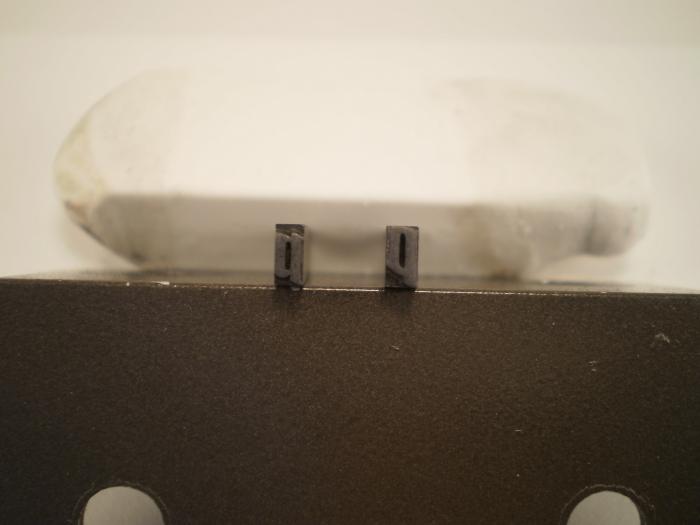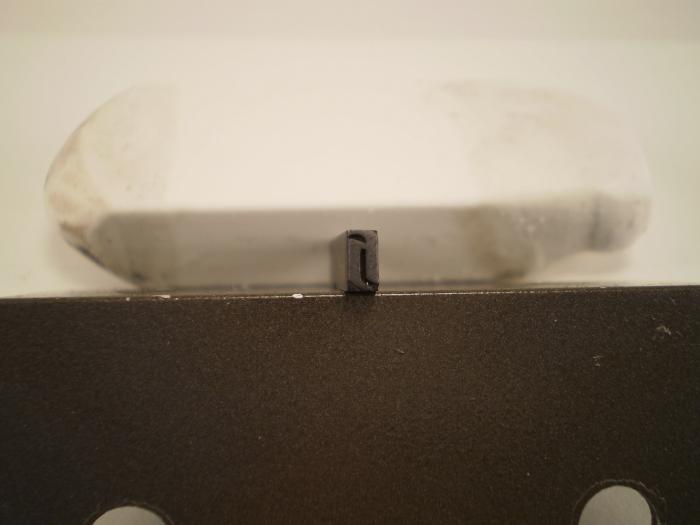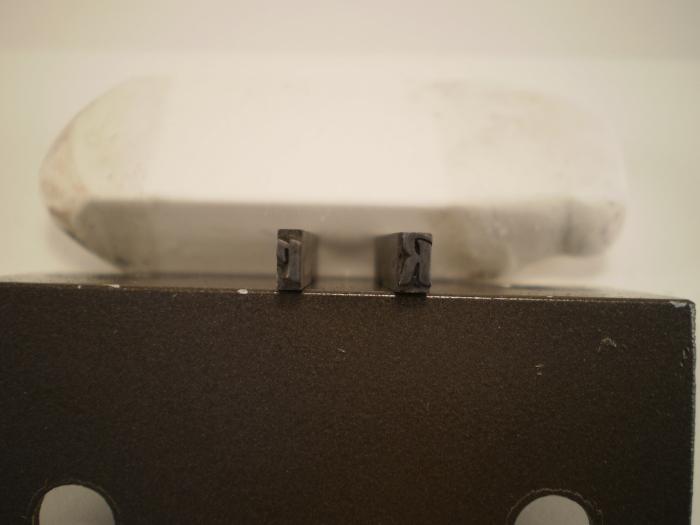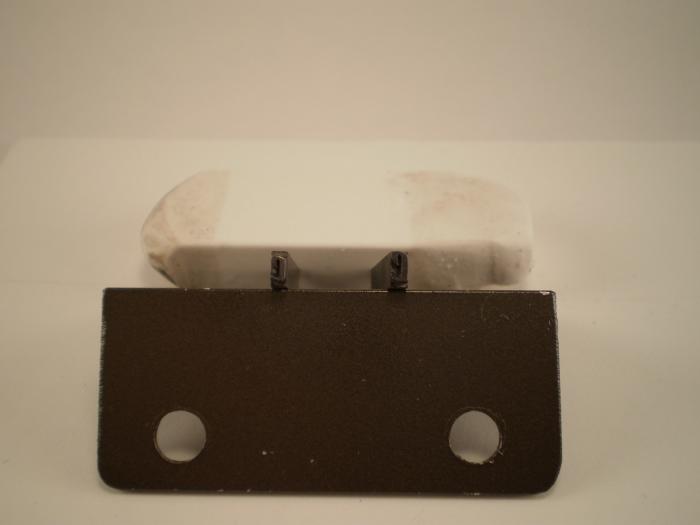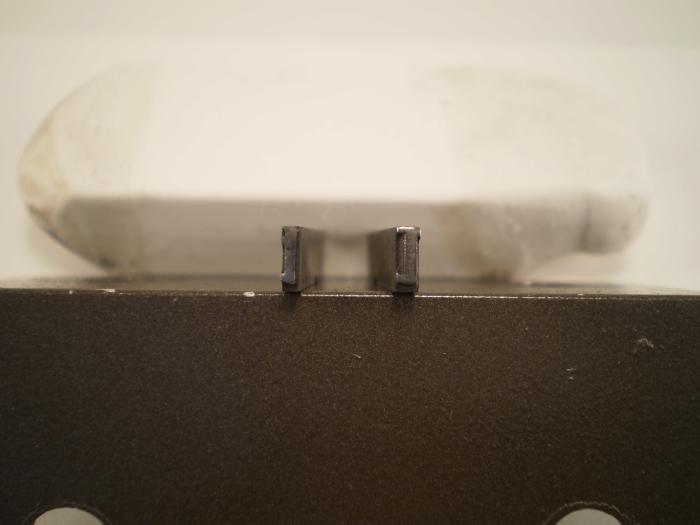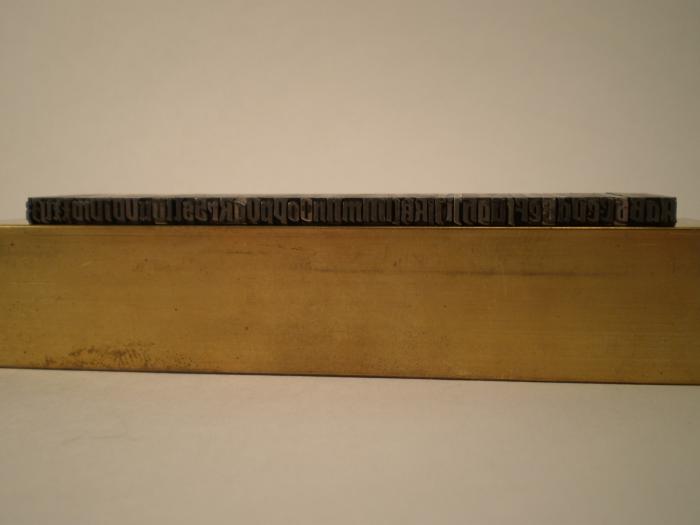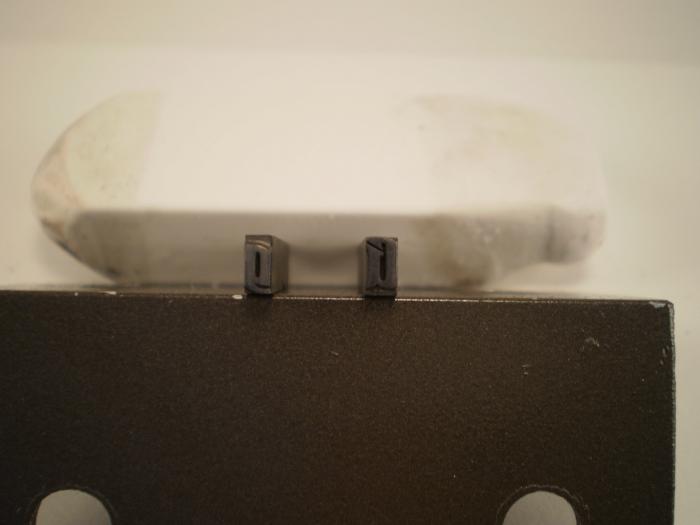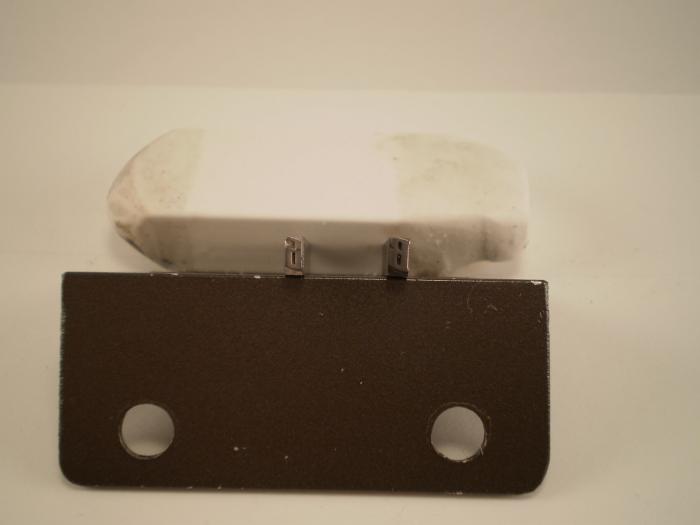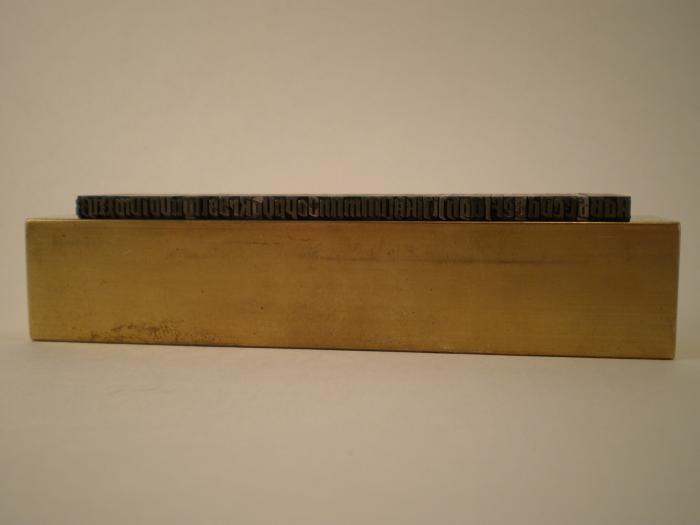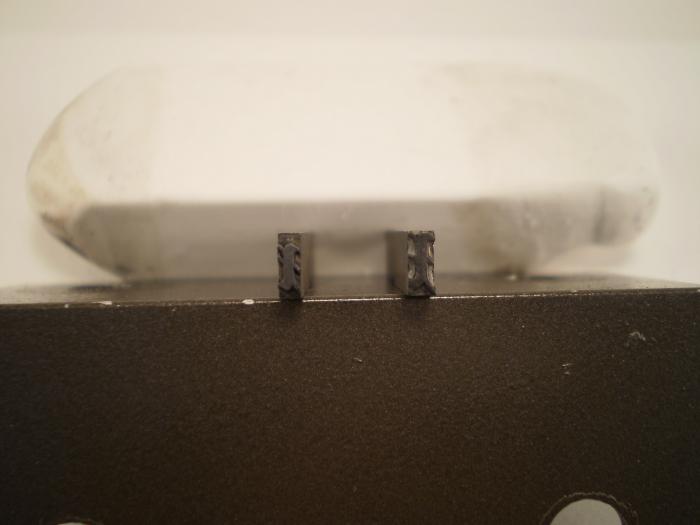
Bitte hilfen einen unbekannten Fraktur Schriftart zu identifizieren
Ich muss erst sagen dass Deutsch nicht meinen erste sprache ist. Ich bin einen Buchbinder heir in Kanada und habe einen interesse in dem Deutsch-Franzoschiche Krieg von 1870. Ich bin gerade am binden einen buch uerber diesen thema und habe deshalb einen bleischrift von ebay gekauft weil es einen art von Fraktur ist fur dem buch titel. Aber es ist angekommen in einen plastic sac und dar war keinen karte oder sonst zu erklarien welche bustabe ist was, in besonder weiss ich nicht ob ich den L richtig hab oder dem L ich habe heir in dem bild nur einen ] ist. Auch gibts einen name fur diese schriftart?
In Englisch:
I have to first state that German is not my native tongue. I'm a bookbinder here in Canada and I have an interest in the Franco-Prussian War of 1870. I'm currently binding a book that is covering that topic and therefore have bought a set of Fraktur leadtype to use for the book title on the spine. It arrived in a plastic bag without any sort of identification card to figure out what letter is what. In particular I'm not sure I correctly identified the L in the picture. I'm not sure it's a captial L or simply a ] . Furthermore does anyone know the name of the font?
In particular I'm not sure I correctly identified the L in the picture. I'm not sure it's a captial L or simply a ] . Furthermore does anyone know the name of the font?
We can probably help, but can you maybe create better pictures? It’s hard to see anything on the ones above.
Regarding the typeface, I thought of this one at first glance.
You could also achieve a better resolution by splitting the picture in several chunks. Anyway, I would guess that the quality of the photo is an issue as well.
Hier mal das ebay-Bild gespiegelt und gedreht ... dann können noch mehr von uns mitraten ...
(PS: Auch beim zweiten Hinsehen ist Ralf mit der Eldorado echt nah dran ... Wow, so gute Augen hätte ich auch gern noch ...)
I took the chance to flop the ebay image, so all of us could have a little more fun figuring what this might be ...
However, the more I look at it the more I think Ralf is right with guessing it's the "Eldorado".
True, Eldorado is much a better match than mine.
But: Are the types on the eBay-pic actually the same they sent to you? I'm not so sure, particularly the «k» looks different, IMHO.
(Hence my guess which was based on the first pics.)
Yes what you see in the ebay picures is what I was sent. Hopefully this will help solve the mystery of the font. I wonder if it's from the 1920s-30s?
The new pics are much better, particularly the 164244.jpg , but the others have still too much reflection (to my eyes, at least).
I have an idea — could you take some more detailed pictures, e.g.:
Pic #1: A a  B b  C c
Pic #2: D d  E e  F f
and so forth?
I'm not so sure, particularly the «k» looks different, IMHO.
(Hence my guess which was based on the first pics.)
Now I can explain: the type next to the «K», that's not a «k» — it's a «tz» ;)
This is clearly "Reklameschrift Eldorado", released 1912 (Seemann) or 1910 (Kilimschs Jahrbuch des grafischen Gwewerbes, Band 15). by Otto Weisert, Stuttgart.
And yes, that isn't a Letter "k", but a ligature of t and z, whis is quite often misused as a k.